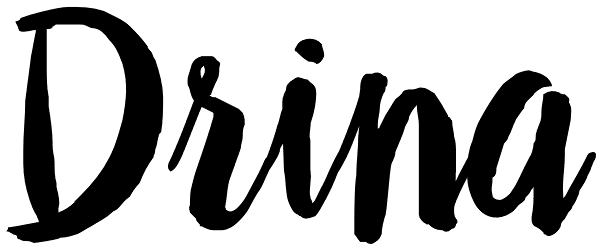
Drina
Drina is a script handwritten font with a casual and modern look. Because of the spontaneity there are plenty of Standard and Discretionary Ligatures to avoid frequent repetition of letters. If you find a single repeating glyphs, you can change that...